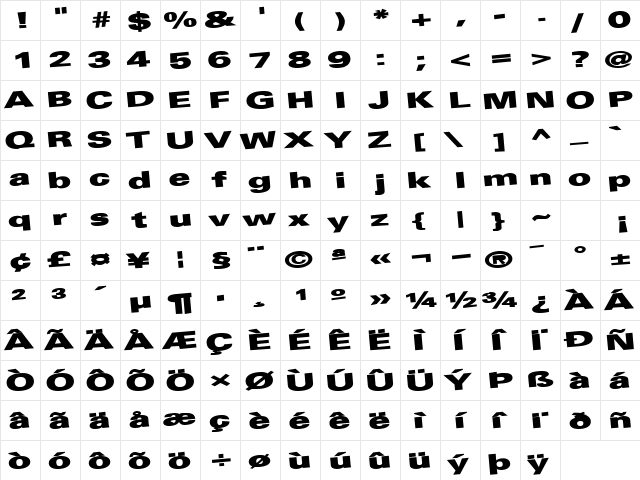
AtLeisureWorld76 Bold
Design Context for AtLeisureWorld76 Typeface
AtLeisureWorld76 is a composed and adaptable typeface that performs quietly and consistently across a wide range of design contexts. The heavy weight commands attention and anchors typographic hierarchies.